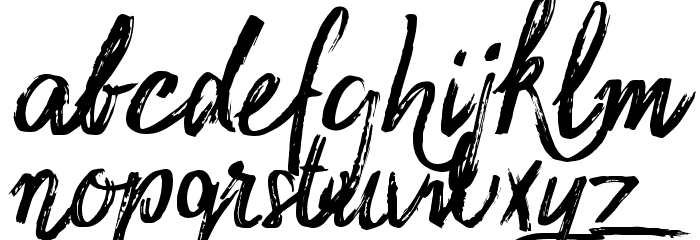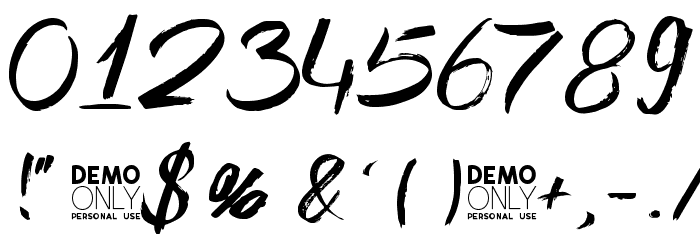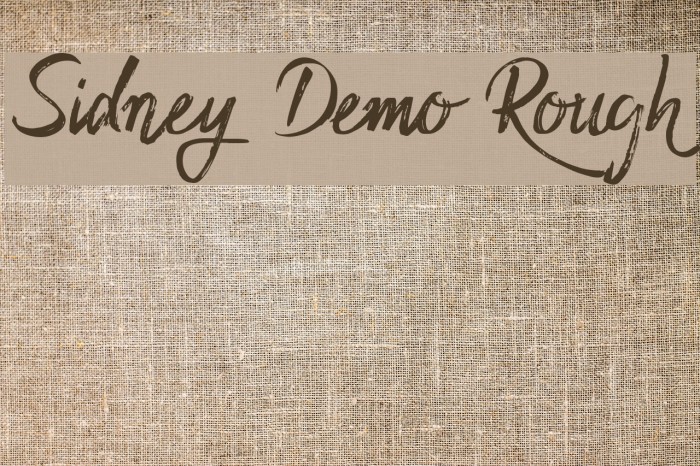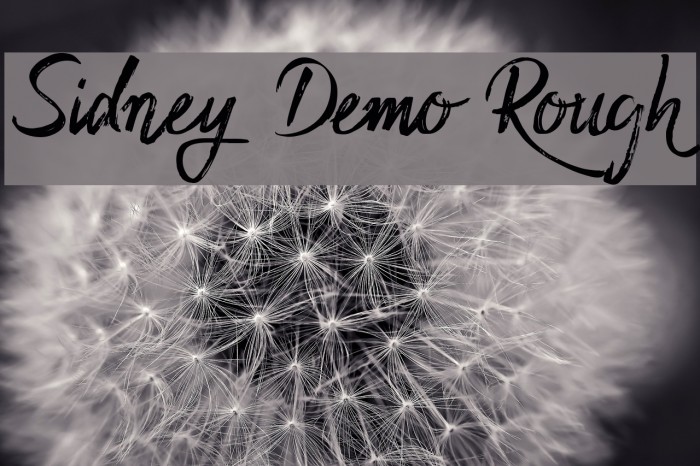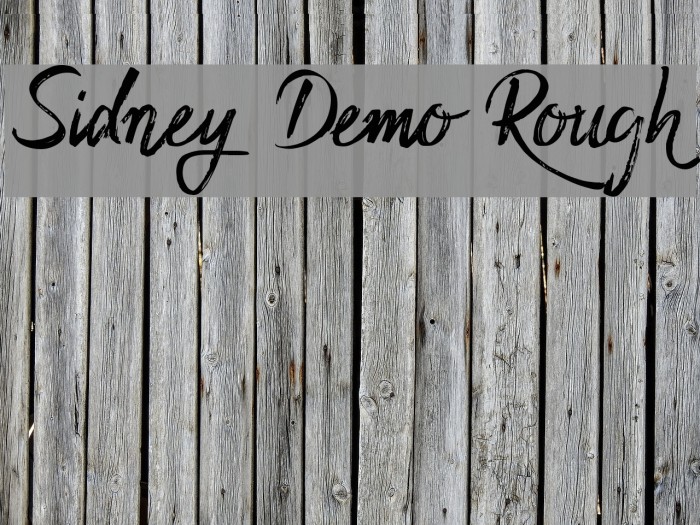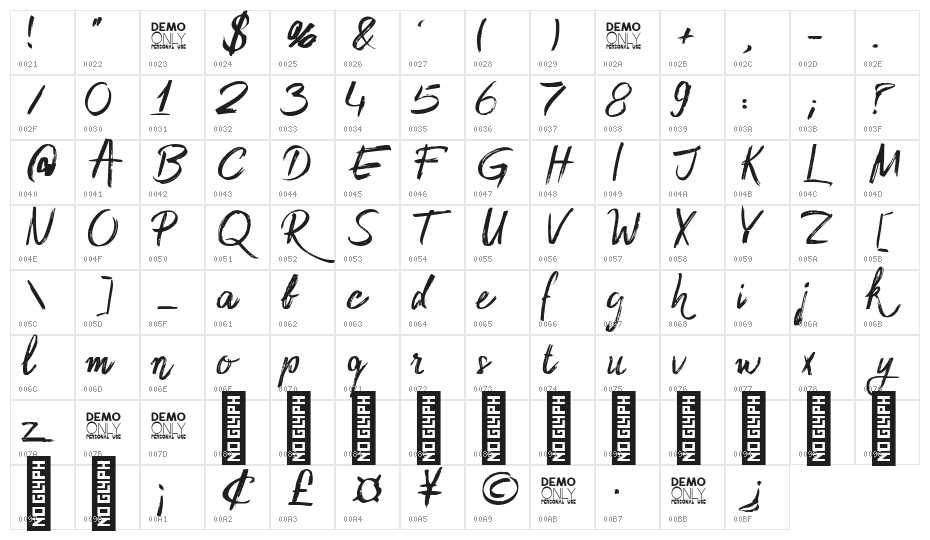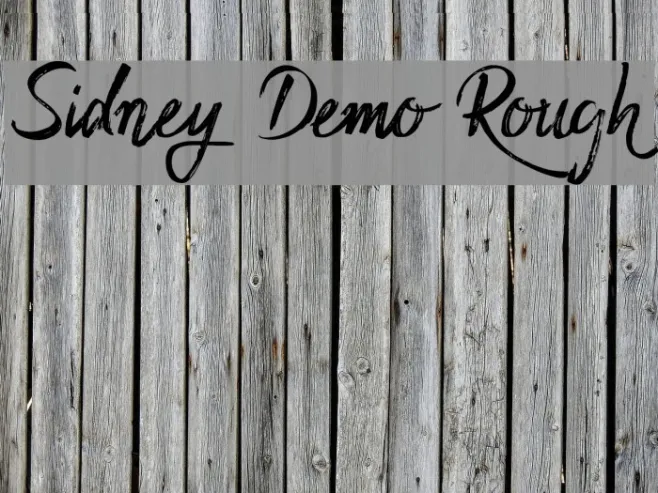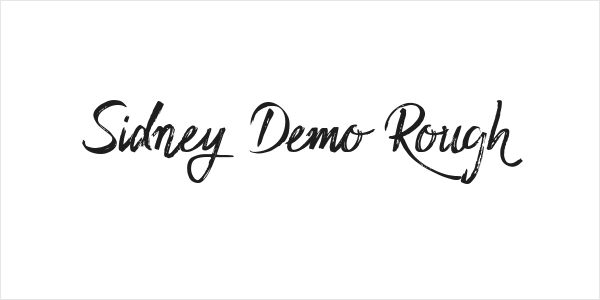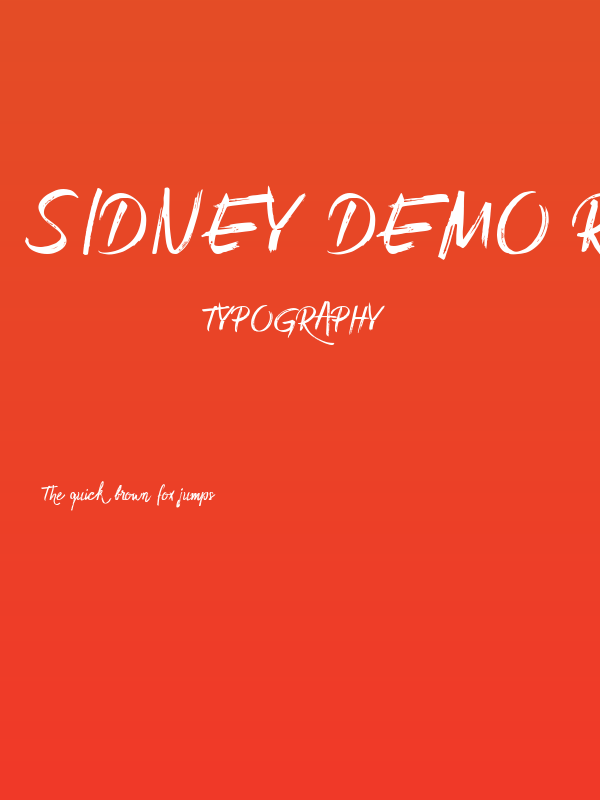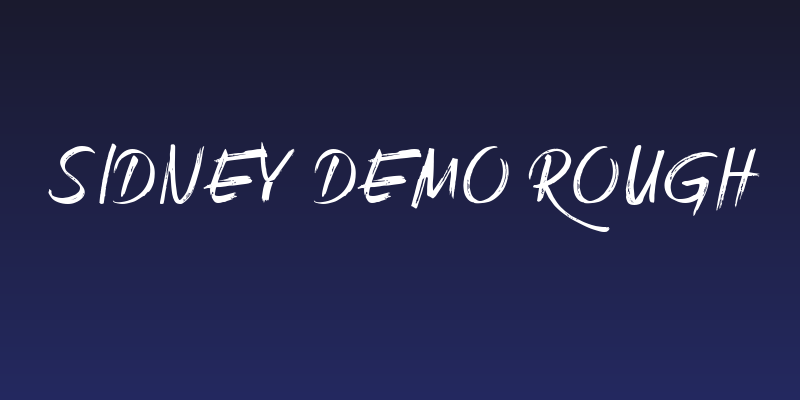
Sidney Demo Rough Font
This font features a dynamic and expressive style, characterized by its rough, brush-like strokes that convey a sense of energy and movement. The uppercase and lowercase letters are crafted with a hand-drawn appearance, giving them a unique, artistic flair. The numbers and special characters maintain this aesthetic, ensuring a cohesive look across all elements. The irregularities in stroke width add to its raw and authentic feel, making it ideal for projects that require a personal touch. Its bold presence makes it suitable for eye-catching designs.
A dynamic, brush-style font with rough, expressive strokes.
- Proposed Projects: Ideal for artistic projects, posters, branding, and any design that requires a bold, personal touch.